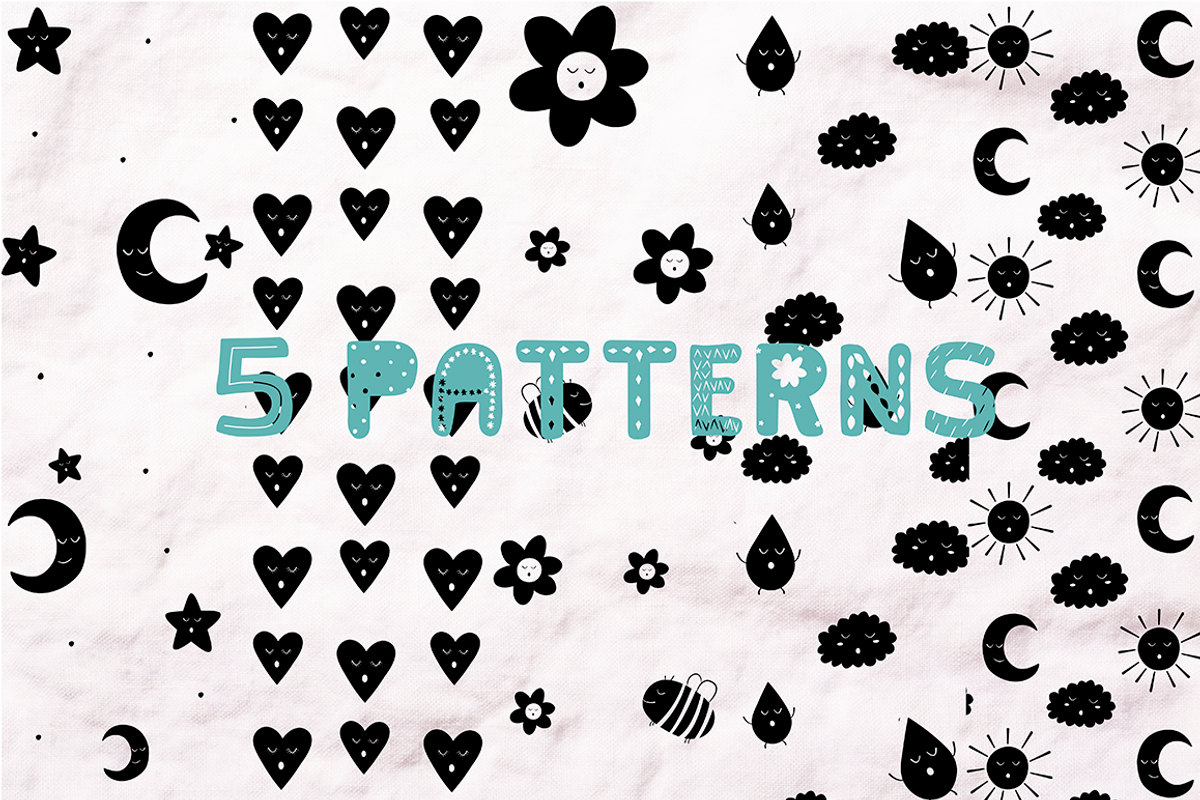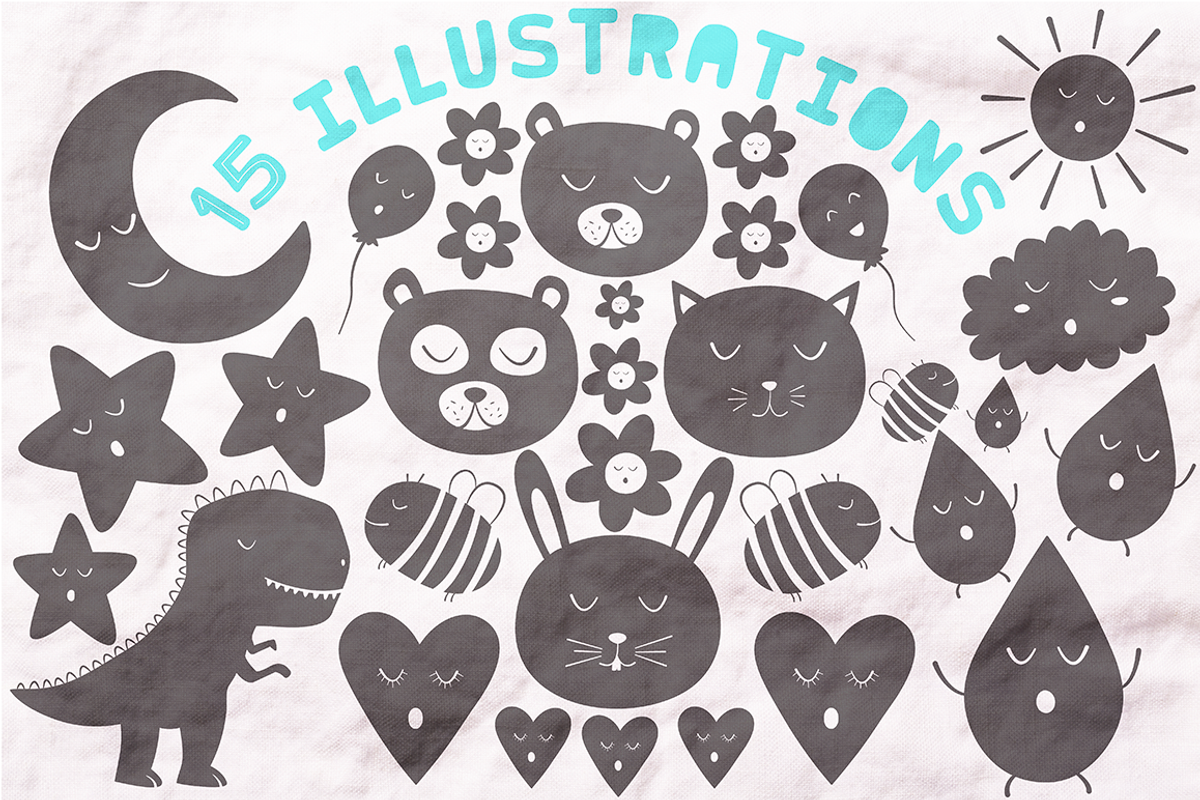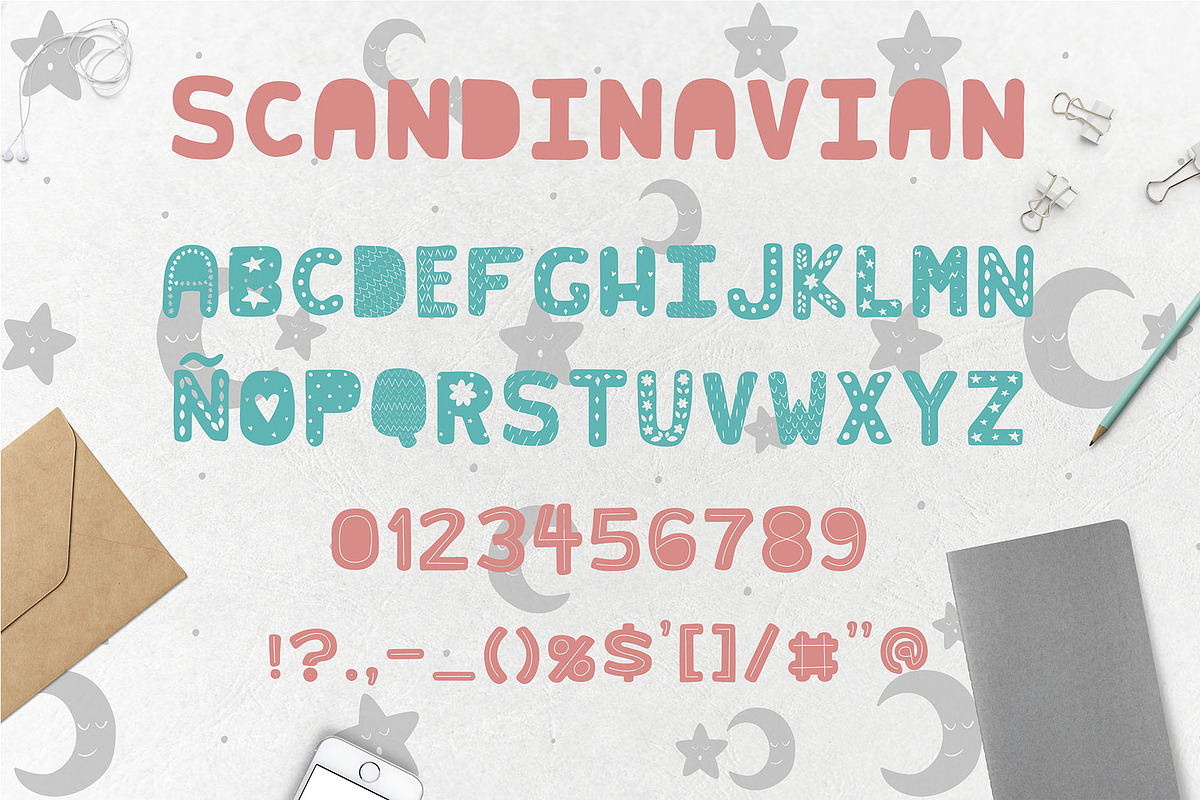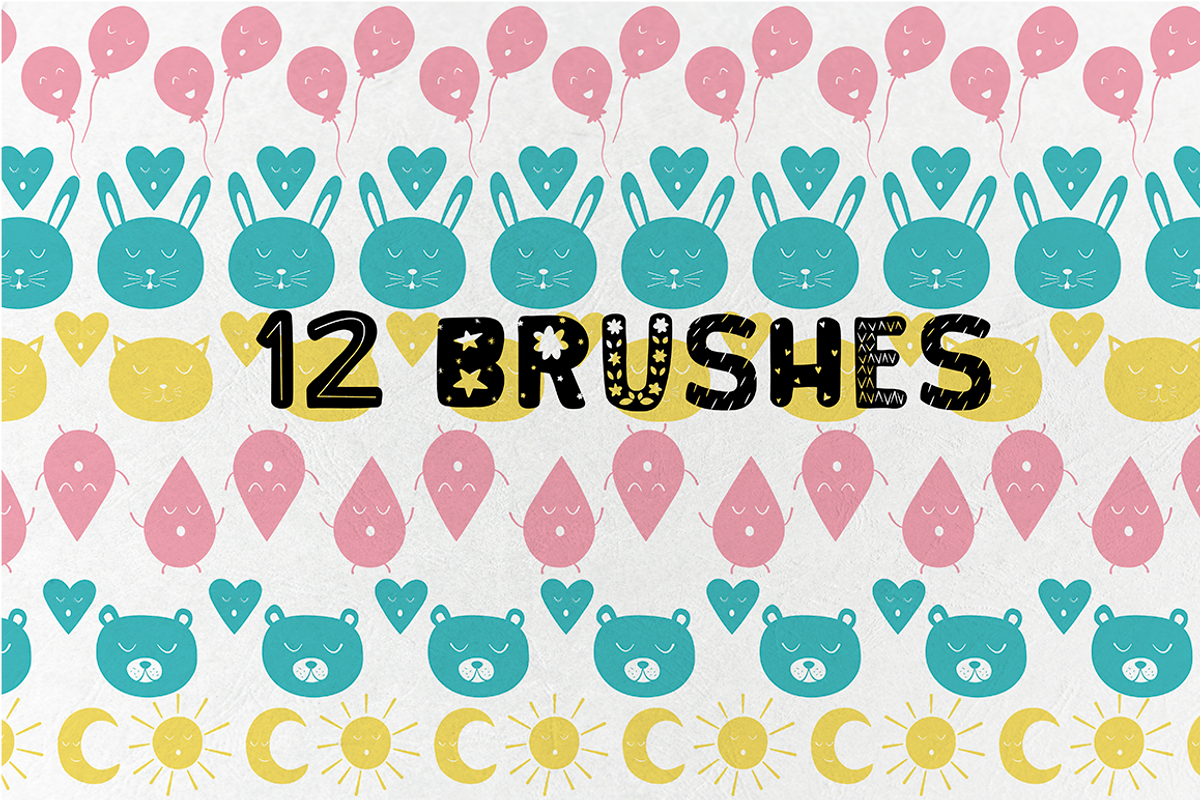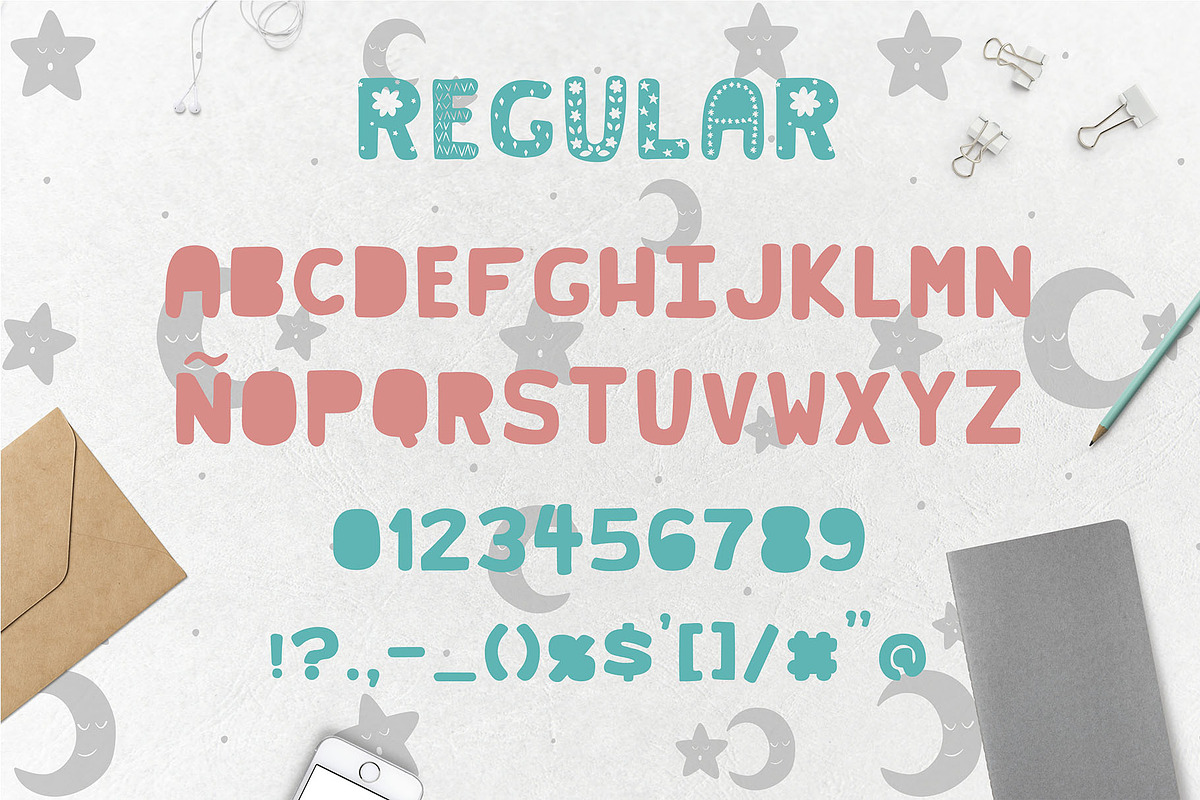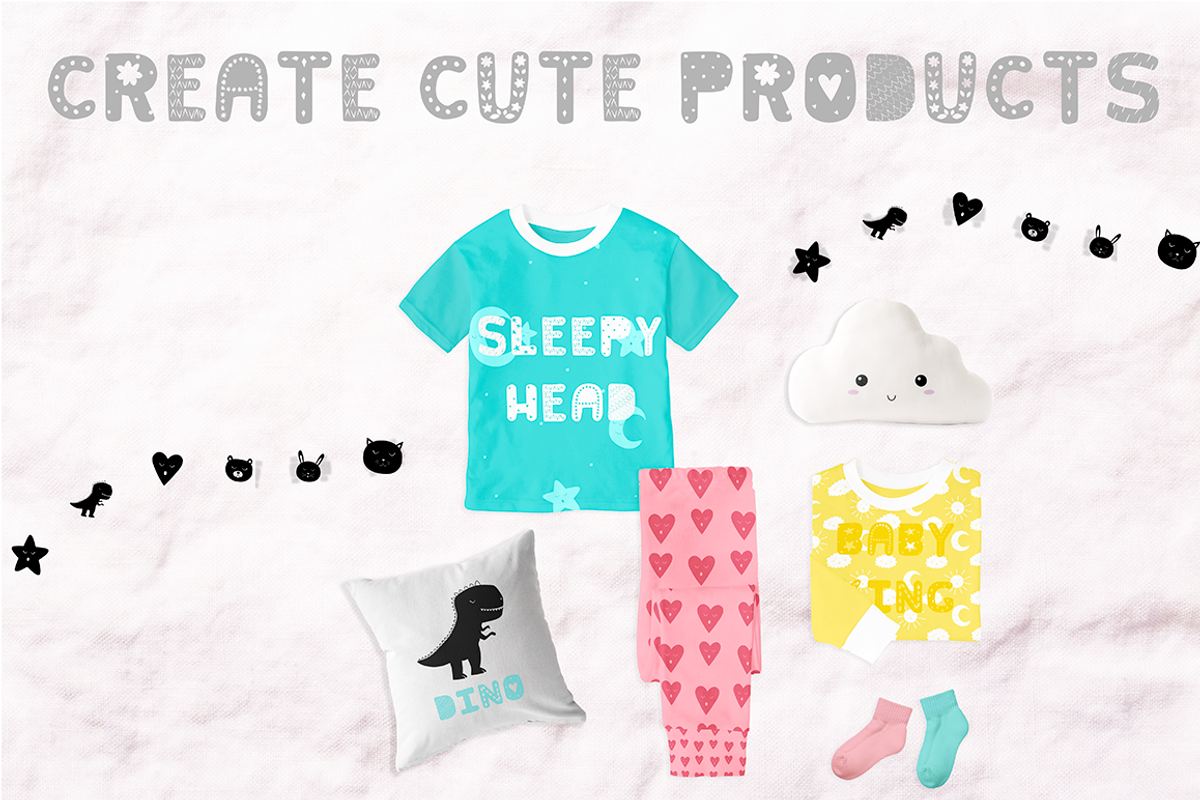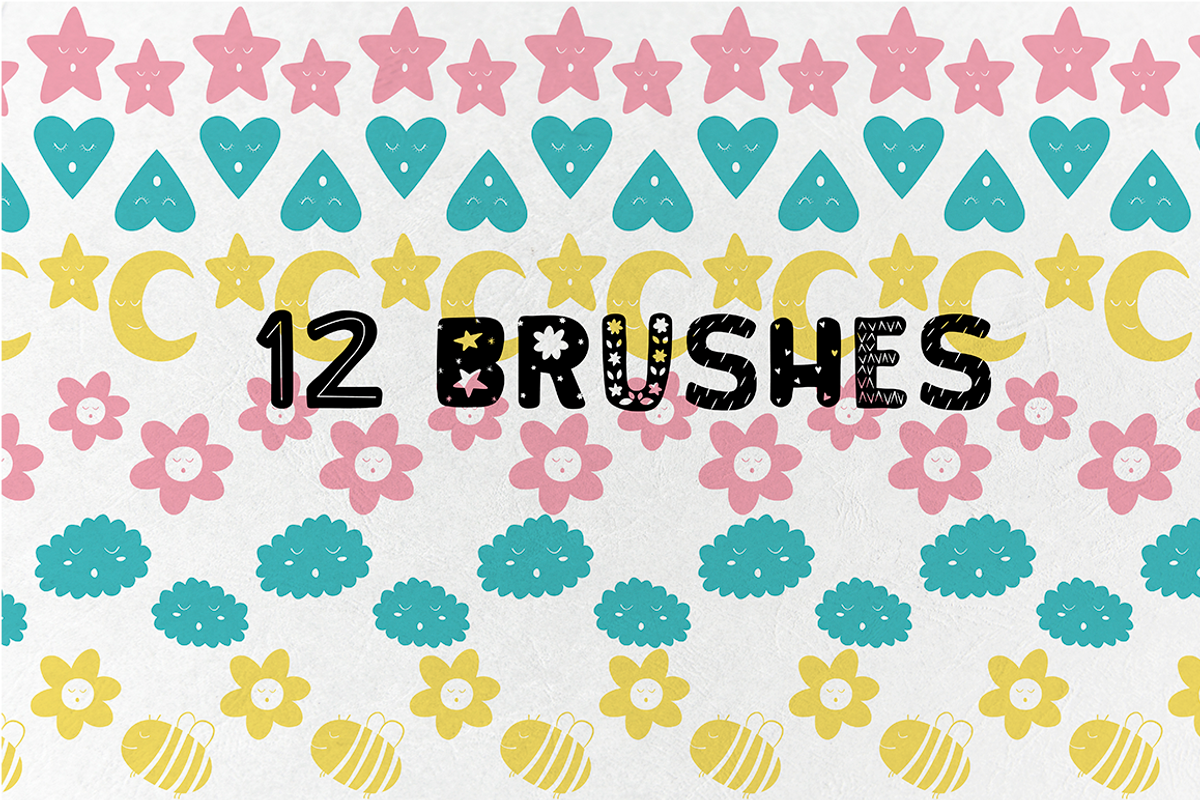
Bear cub Scandinavian kids font+MORE
BEAR CUB SCANDINAVIAN KIDS FONT + PATTERNS + CLIPARTS + BRUSHES
Hey guys! Today I want to present to you with Bear Cub the scandinavian kids font, this fun typeface is the perfect choice if you want to give your design a playful and childish look. The best part about this font is that it doesn't come alone! The cliparts, patterns and brushes create the perfect complements for this font, with them you can create the cutest products. You can use them as you want, there's no limits!. Created with @Fontself